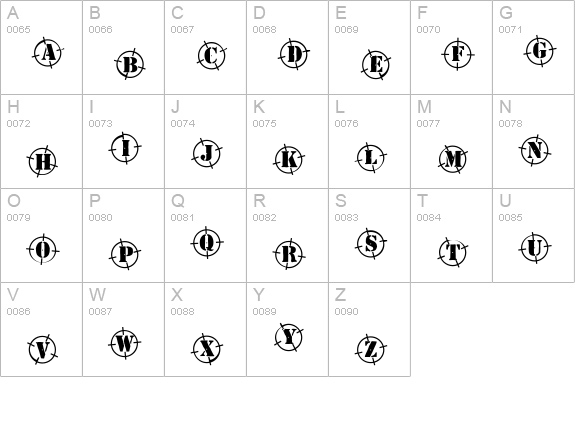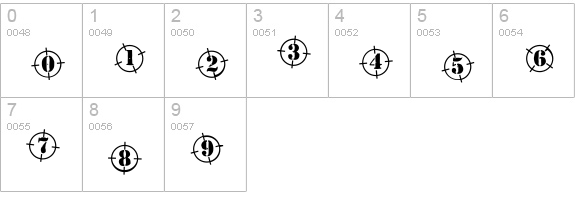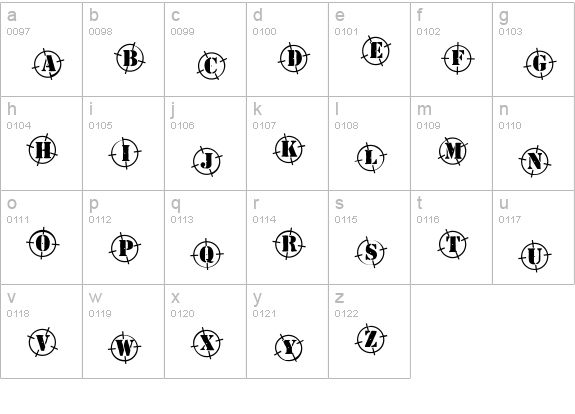
SeeTheBeast Font Details
Introducing SeeTheBeast, a bold and powerful font that will captivate your audience from the very first glance. With its strong and commanding presence, this font exudes confidence and sophistication, making it perfect for a wide range of design projects. SeeTheBeast is not just your average font - it is a statement. Its unique and eye-catching letterforms demand attention and create a lasting impression. Whether you are designing a logo, a poster, or a website, this font will instantly elevate your project to new heights. But what sets SeeTheBeast apart from the rest? It's not just its exquisite design; it's also the fact that it is freely available for download at FontsMarket.com. Yes, you read that right - SeeTheBeast can be yours without spending a penny. We believe that great design should be accessible to all, which is why we have made this font available for free. So why wait? Take your designs to the next level with SeeTheBeast. Download it now from FontsMarket.com and unleash the power of this remarkable font. Whether you are a professional designer or a creative enthusiast, SeeTheBeast will be your secret weapon, helping you create stunning visuals that leave a lasting impression. Don't miss out on this opportunity - get SeeTheBeast today and make your designs roar!